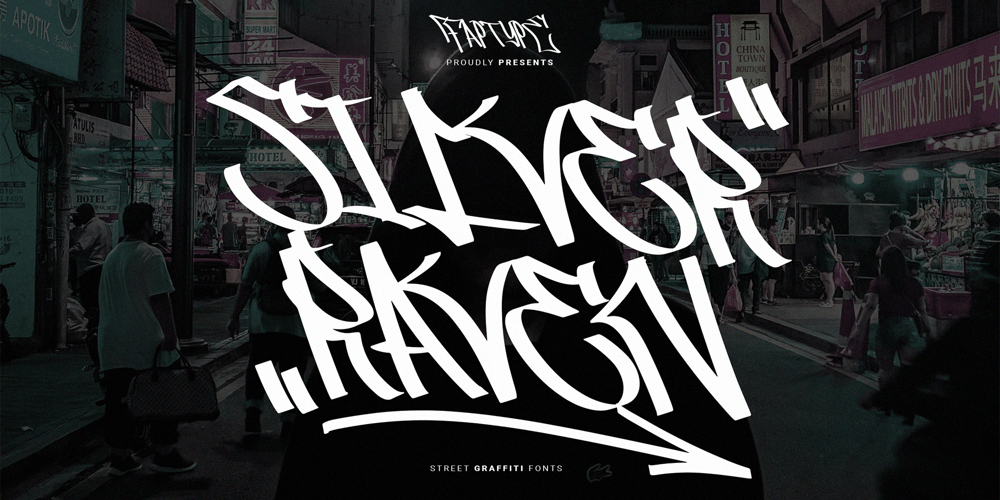
Silver Raven Font Family was designed by Ferry Ardana Putra and published by Ferry Ardana Putra. Silver Raven contains 1 styles and family package options. Hello there!We are introducing our new font – Silver Raven!This font created and inspired from the street writing of New York, and generated by creative hands of graffiti addictions. It has an incredibly unique design that can be perfect for a range of creative branding and packaging projects. Take your designs to the next level with this stunning font!You can apply this font to t-shirt designs, posters, covers, video thumbnails, merchandise, wall, and so on to make it look special.———Silver Raven features:A full set of uppercase and lowercaseNumbers and punctuationMultilingual language supportPUA Encoded CharactersOpenType FeaturesLayered Style+257 Total GlyphsGraffiti Swashes and Ornaments included!———Silver Raven Includes:Silver Raven (OTF/TTF)———⚠️To enable the OpenType Stylistic alternates, you need a program that supports OpenType features such as Adobe Illustrator CS, Adobe InDesign & CorelDraw X6-X7, Microsoft Word 2010 or later versions. There are additional ways to access alternates/swashes, using Character Map (Windows), Nexus Font (Windows), Font Book (Mac) or a software program such as Pop Char (for Windows and Mac).⚠️For more information about accessing alternative, you can see this link: http://adobe.ly/1m1fn4Y———